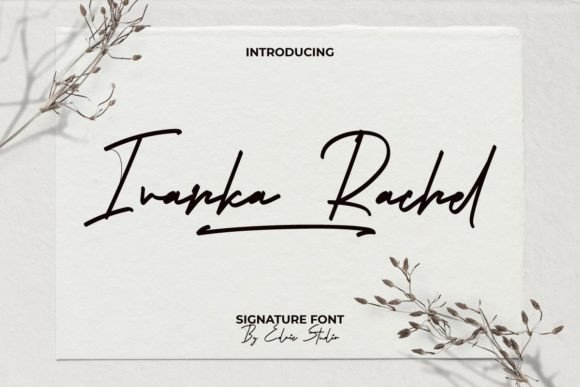
Dive into the world of Ivanka Rachel, a mesmerizing script font that embodies the essence of authenticity and natural flow. Its elegant curves and charming personality will captivate your audience, leaving an unforgettable impression. Whether you're a tattoo artist yearning to create bespoke lettering or a creative spirit seeking a unique touch for your branding, Ivanka Rachel is your ultimate choice.
With Ivanka Rachel, you hold the power to craft a custom personal signature that reflects your individuality. Let your creativity soar as you utilize this font in a myriad of industries, from the allure of beauty products to the sophistication of business ventures. Unleash the artistic flair of your handmade crafts and add a touch of elegance to your jewelry designs. Elevate your publishing and printing projects with a font that speaks volumes.
Ivanka Rachel's versatility extends to the culinary realm, transforming menus and packaging into delectable works of art. Picture the allure of a café, hotel, or spa adorned with this font, exuding an aura of luxury and inviting tranquility. Create stunning wedding invitations, heartfelt greeting cards, or any personal correspondence that demands a touch of sophistication.
Experience the ease of use with Ivanka Rachel's PUA encoding, ensuring effortless access to an array of glyphs and swashes. Open up a world of creative possibilities and let your imagination run wild.
Indulge in the beauty of Ivanka Rachel, the font that ignites creativity, evokes emotions, and leaves a lasting impression. Dive in and discover the endless possibilities waiting for you.